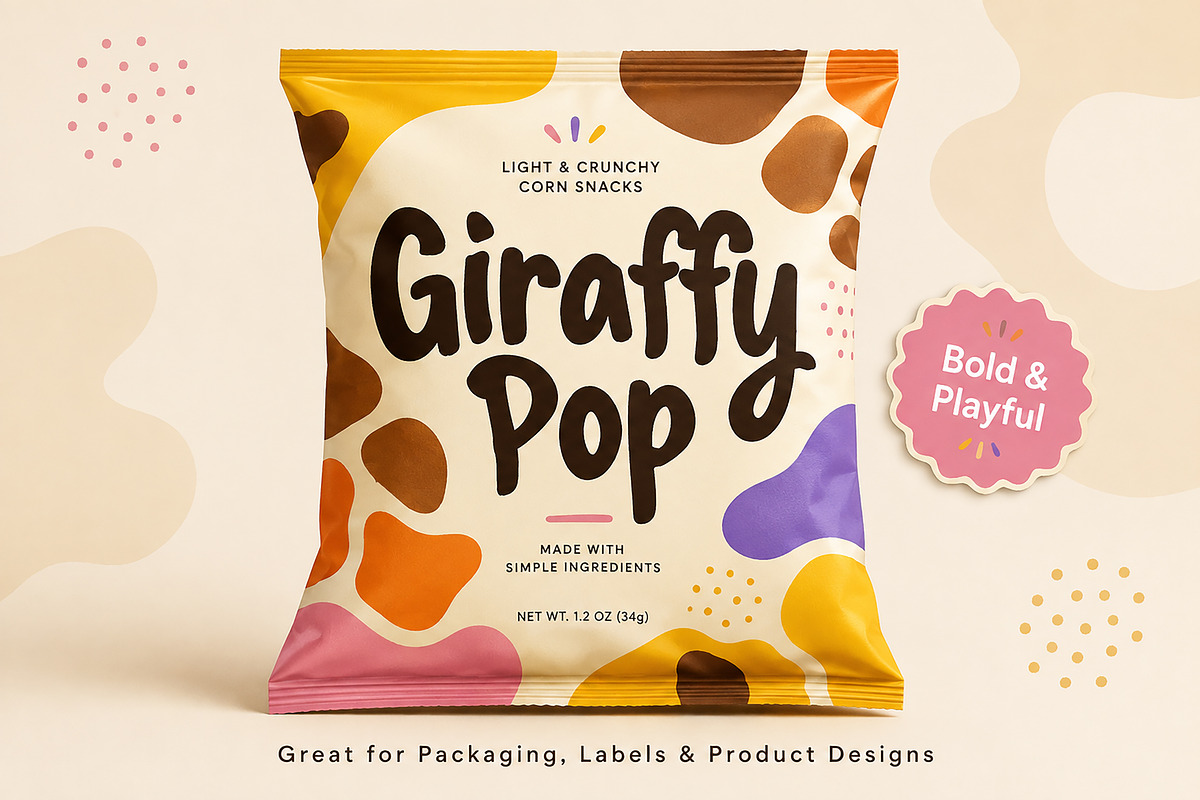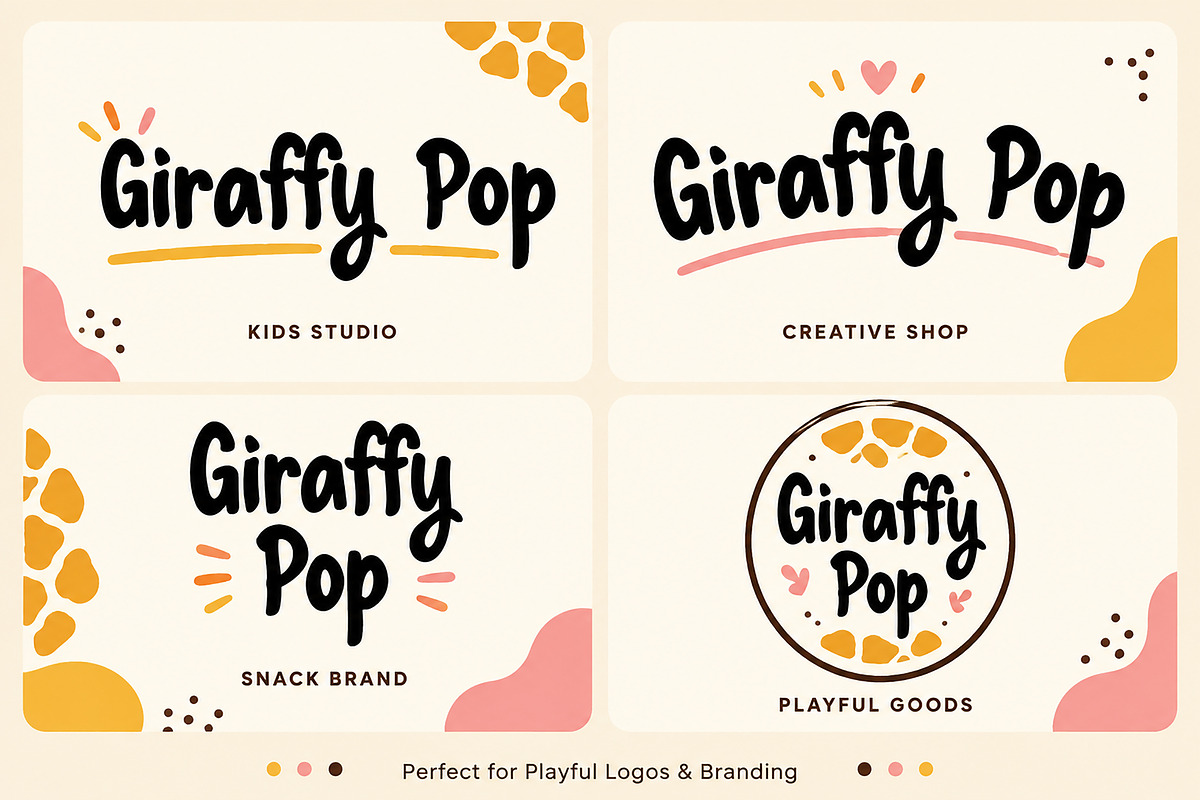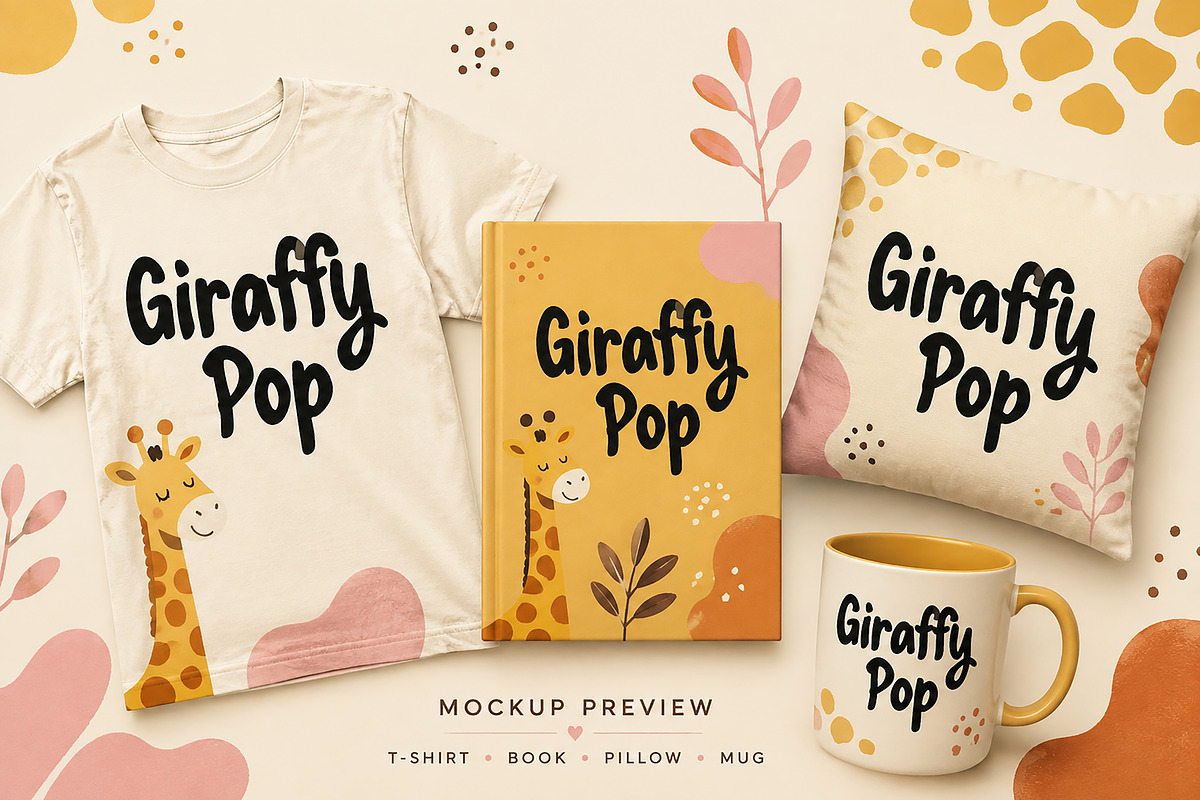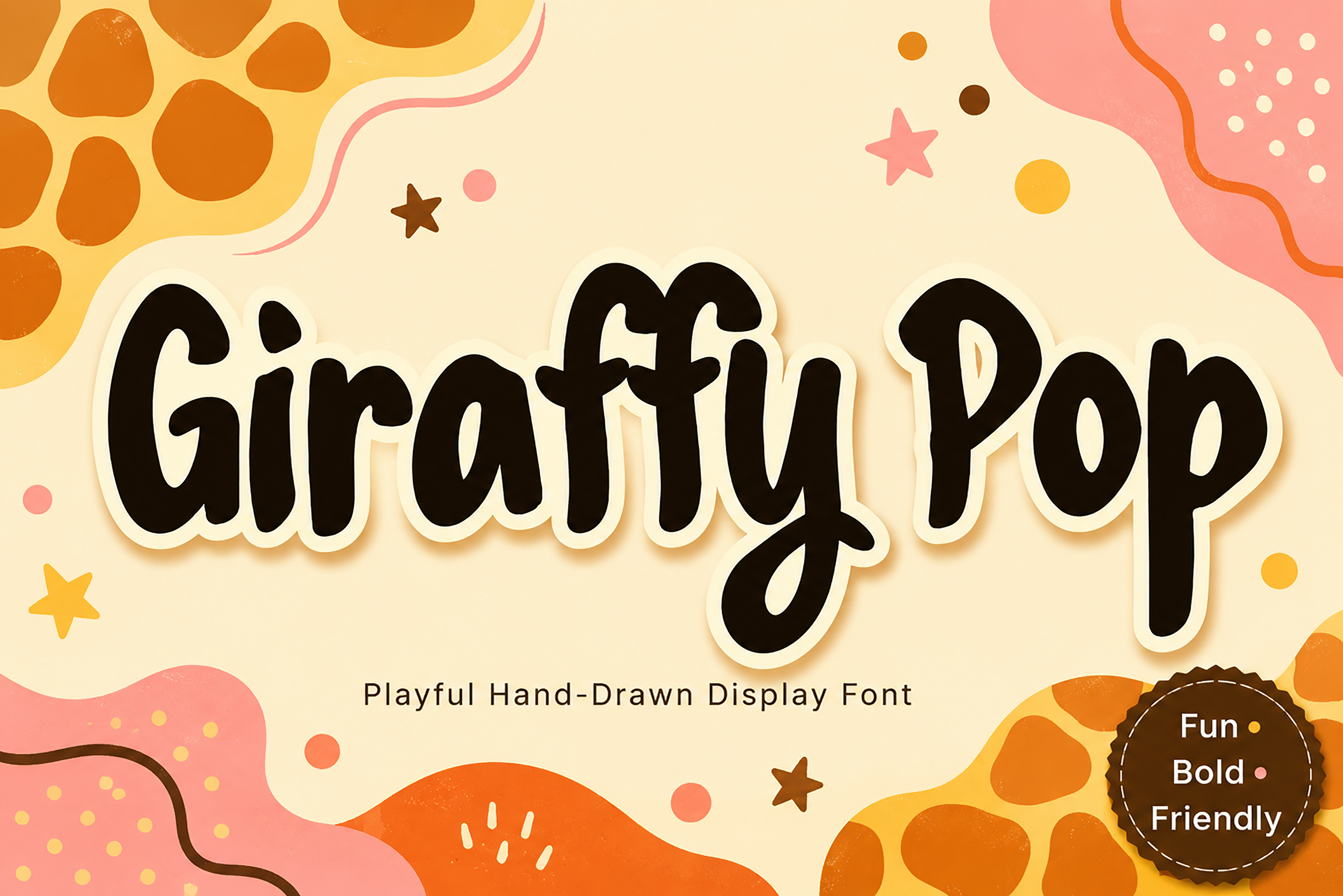
Giraffy Pop – Playful Display Font
Giraffy Pop – Playful Hand-Drawn Display Font
Meet Giraffy Pop, a playful hand-drawn display font filled with bold shapes, friendly curves, and a cheerful personality. Its slightly irregular lettering gives every design a natural handmade appearance while keeping the text fun, clear, and eye-catching.
Giraffy Pop is a great choice for designers who want to create joyful branding, colorful packaging, children’s products, posters, stickers, merchandise, and social media graphics. Its bold and expressive style works especially well for headlines, product names, logos, and short display text.
Use Giraffy Pop to bring a warm, creative, and playful feeling to your next project.
Playful logos and branding
Kids and family-oriented designs
Snack and product packaging
Posters and promotional graphics
Stickers and labels
T-shirts and merchandise
Book and notebook covers
Mugs, pillows, and tote bags
Social media posts
Craft and handmade projects
Birthday and celebration designs
Fun headlines and titles
Playful hand-drawn appearance
Bold and friendly letter shapes
Fun, casual, and creative personality
Great readability for display designs
Suitable for digital and printed projects